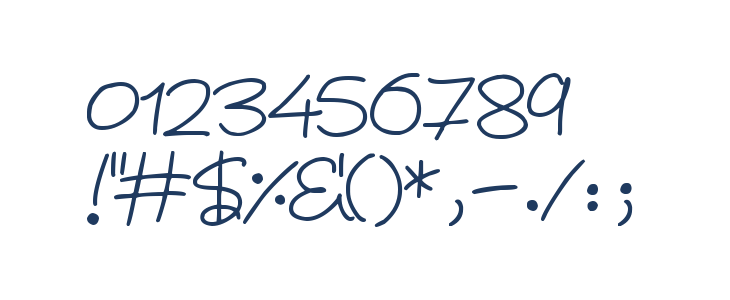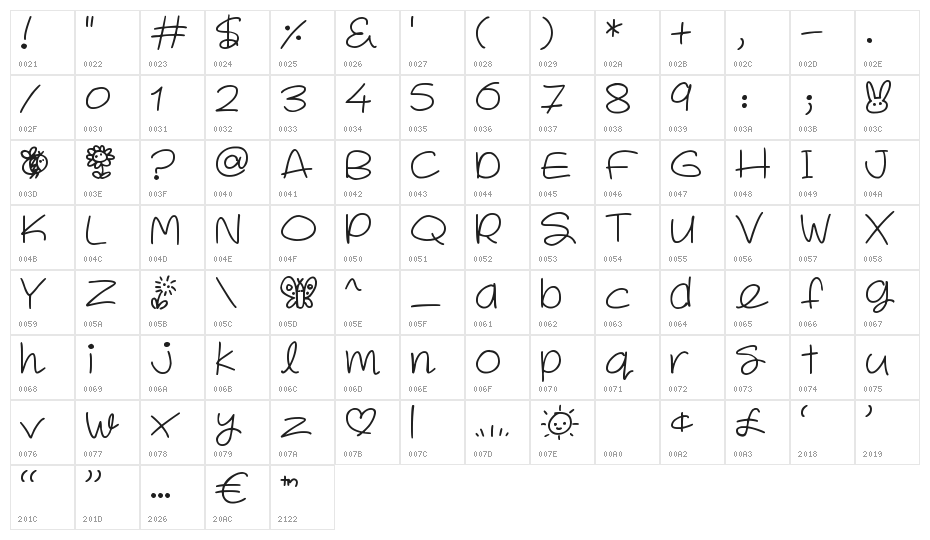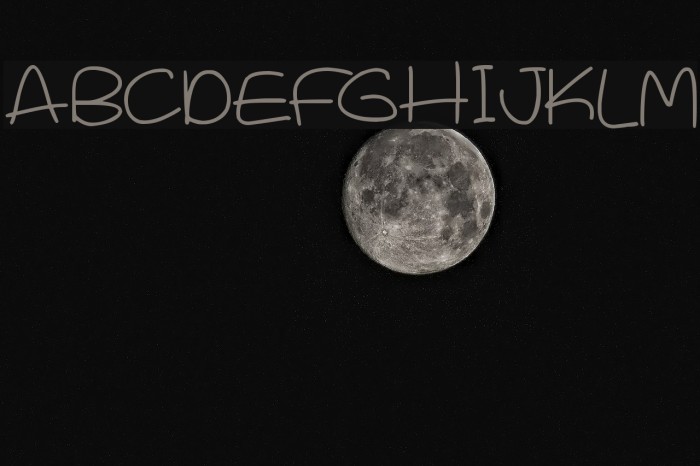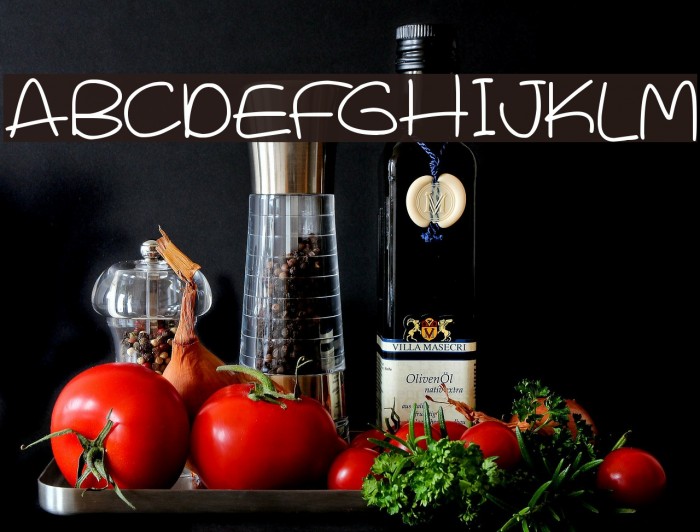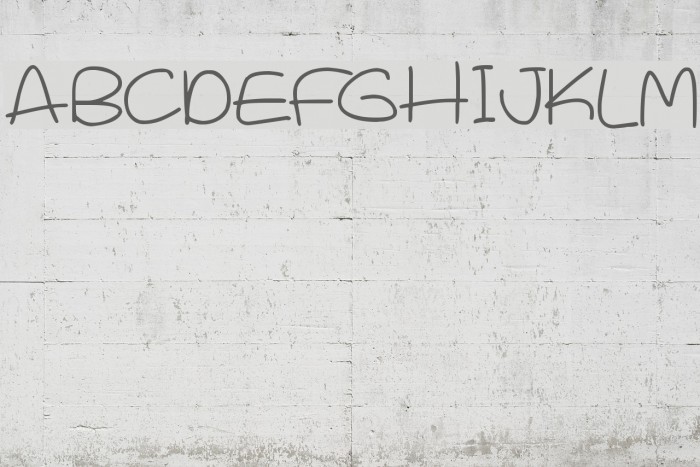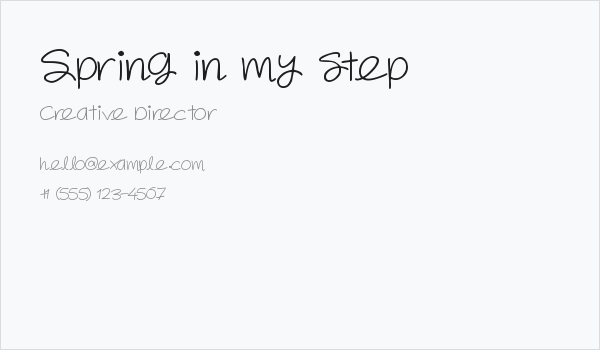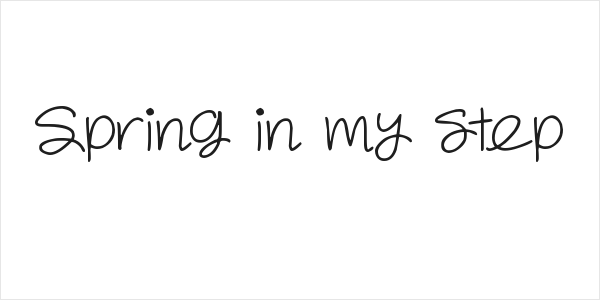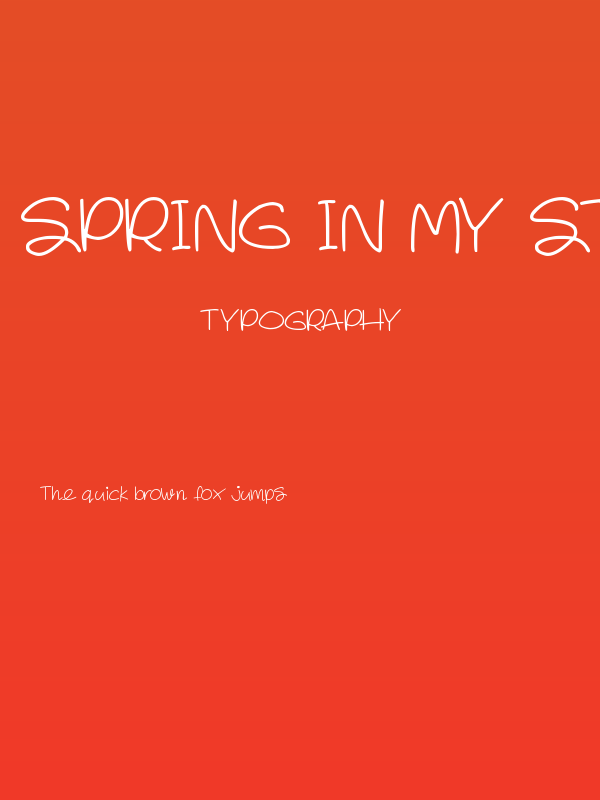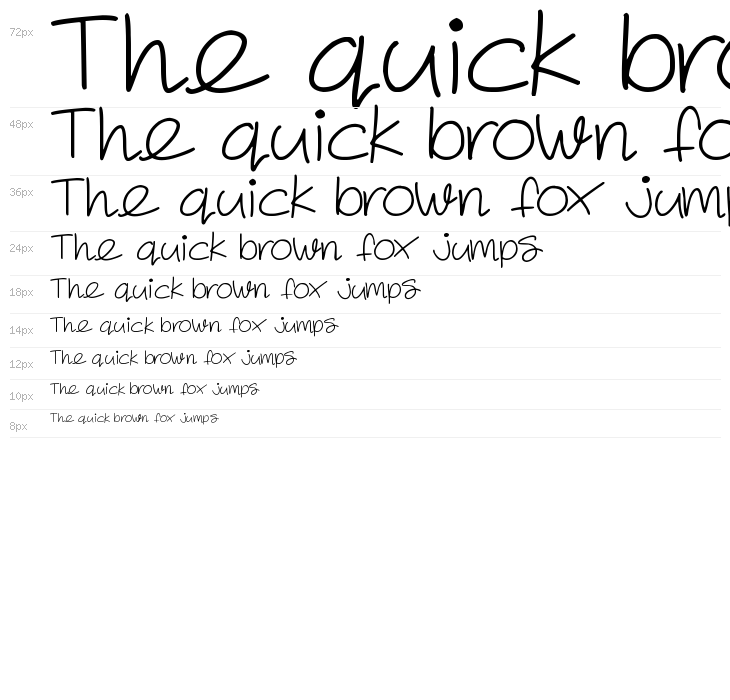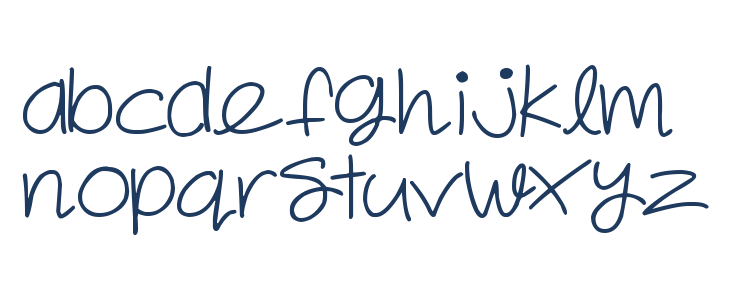
Spring in my step Font
Spring in my step Description
This font exudes a playful and casual vibe, characterized by its handwritten style that mimics natural penmanship. The letters are slightly slanted, adding a dynamic and lively feel. Each character is crafted with smooth, flowing lines, giving it a sense of movement and spontaneity. The strokes are consistent in width, providing a uniform appearance across all characters. This font includes a full set of uppercase and lowercase letters, numbers, and a variety of special characters, making it versatile for different uses. The overall look is friendly and approachable, perfect for projects that require a personal touch.
| Overall Style | Casual |
| Use Case | Headlines, Informal text, Personal projects |
| Proposed Projects | Ideal for greeting cards, invitations, personal branding, and social media graphics. |